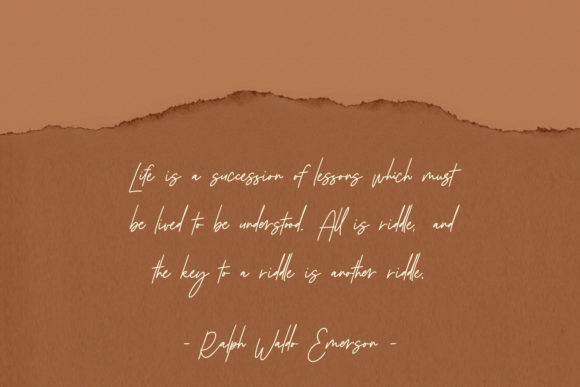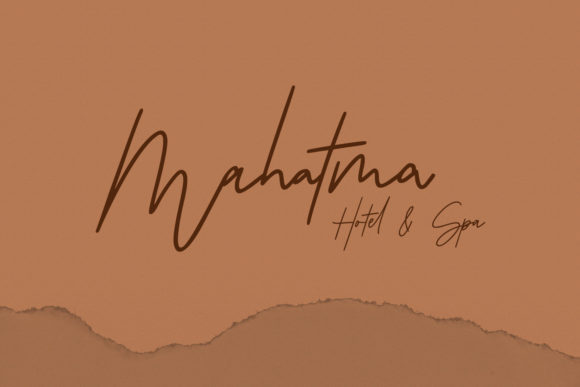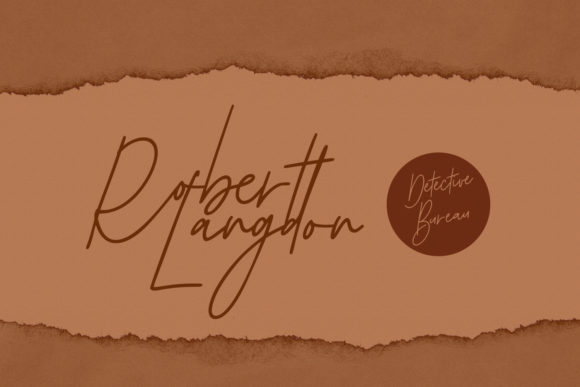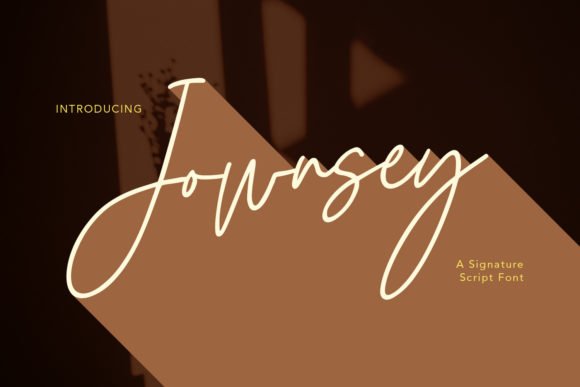
Introduction to Jownsey Script Font
Jownsey Script is a stylish and fashionable script font.
It has a clean, thin and smooth vibe and it will be a hit for any design that you want to add it to .
Why Choose Jownsey Script Font?